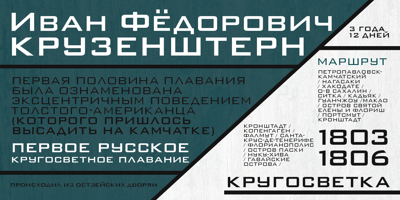
Skope Font Free Download
Skope Font Free Download is a contemporary sans-serif typeface that blends geometric precision with a warm, humanist touch. Its clean lines, open shapes, and subtle curves make it ideal for editorial design, branding, websites, app interfaces, and any project where modern clarity meets friendly readability.
Skope is built for versatility—it includes multiple weights, full punctuation, and multilingual support, making it perfect for both display and body text. Whether you're designing for tech, education, lifestyle, or corporate environments, this font adapts effortlessly to different tones and formats.